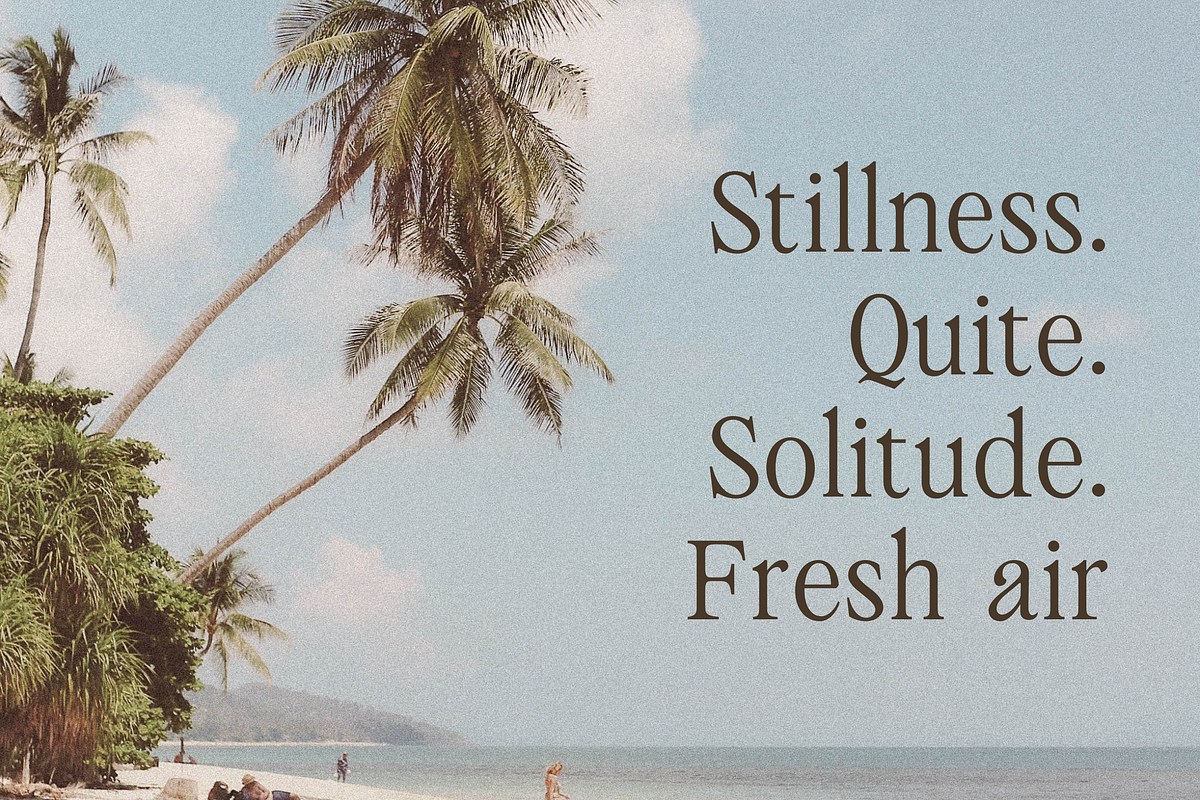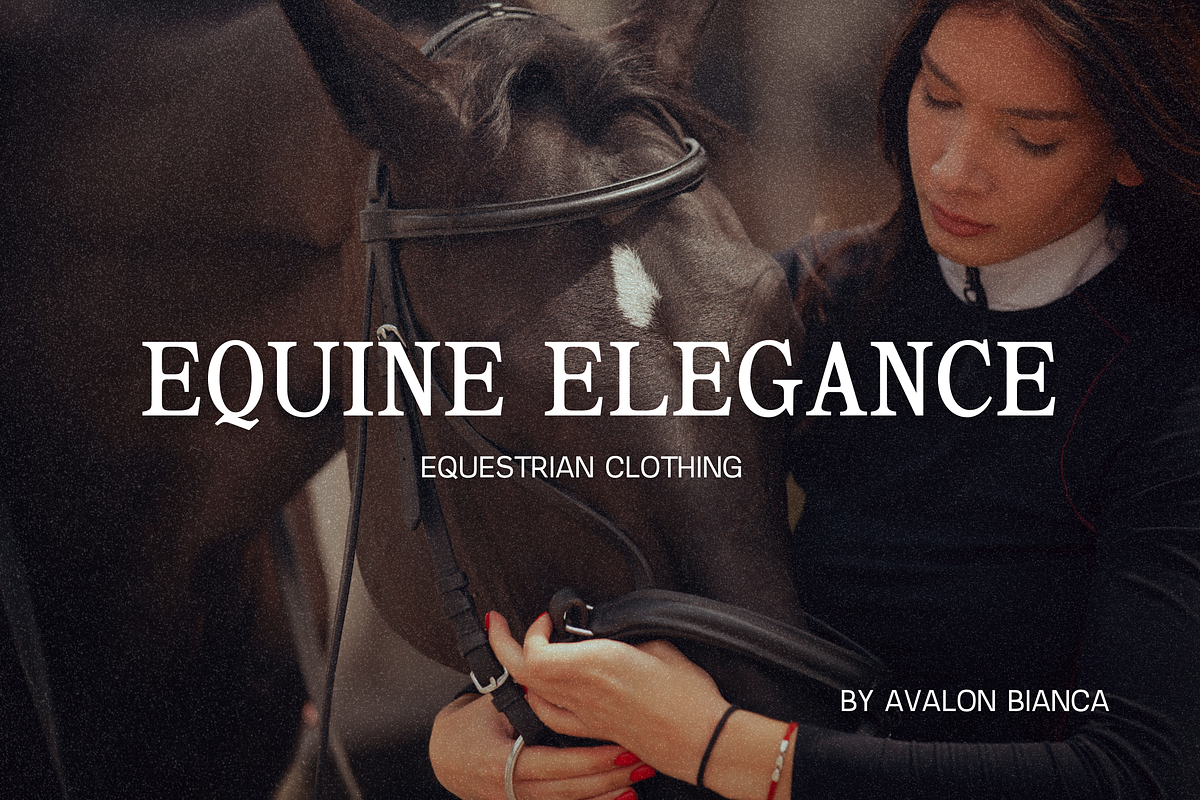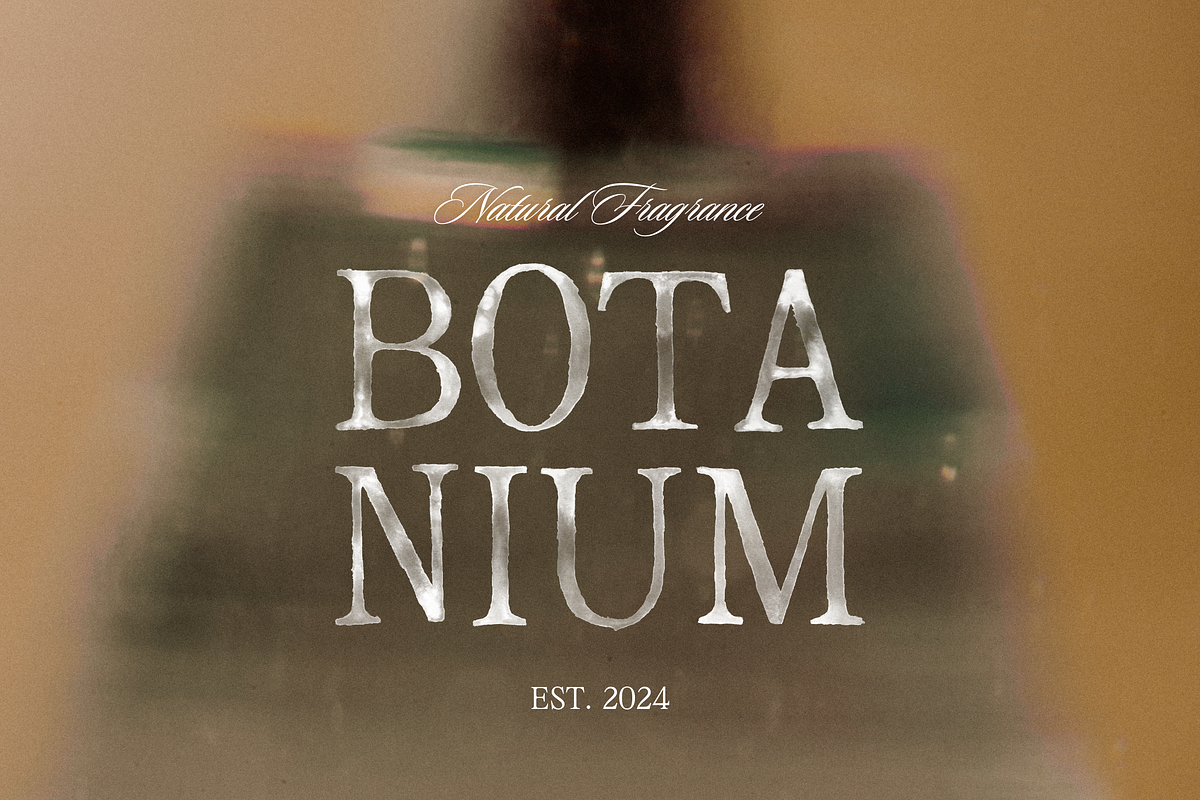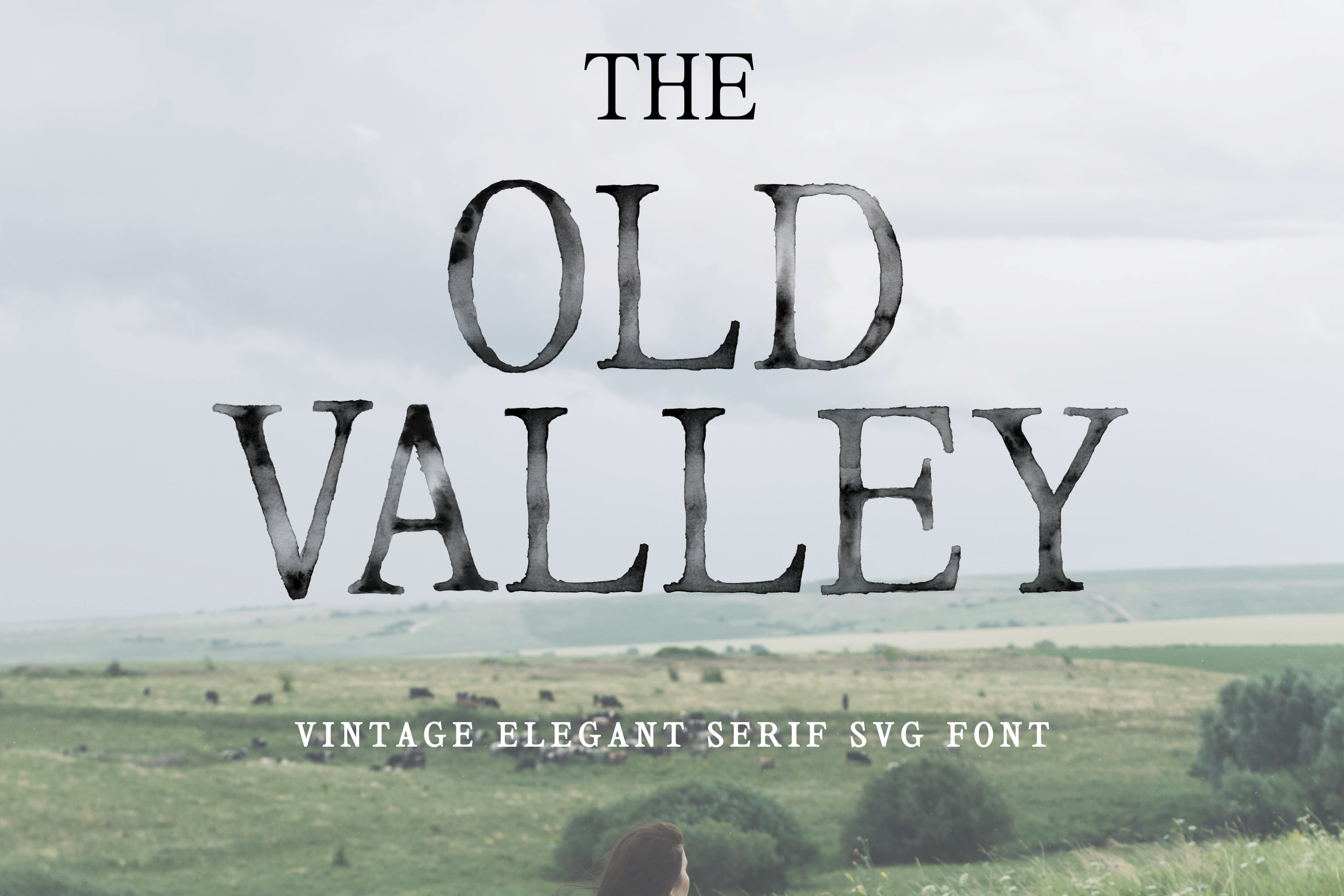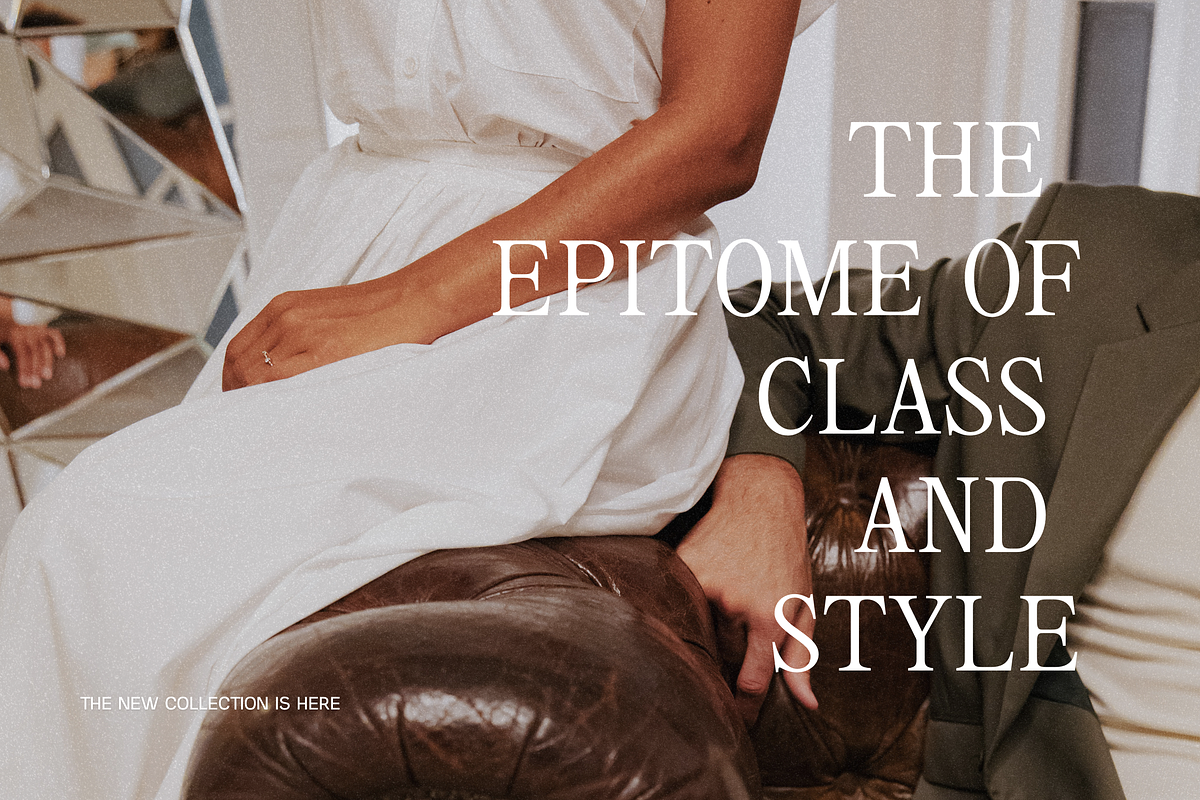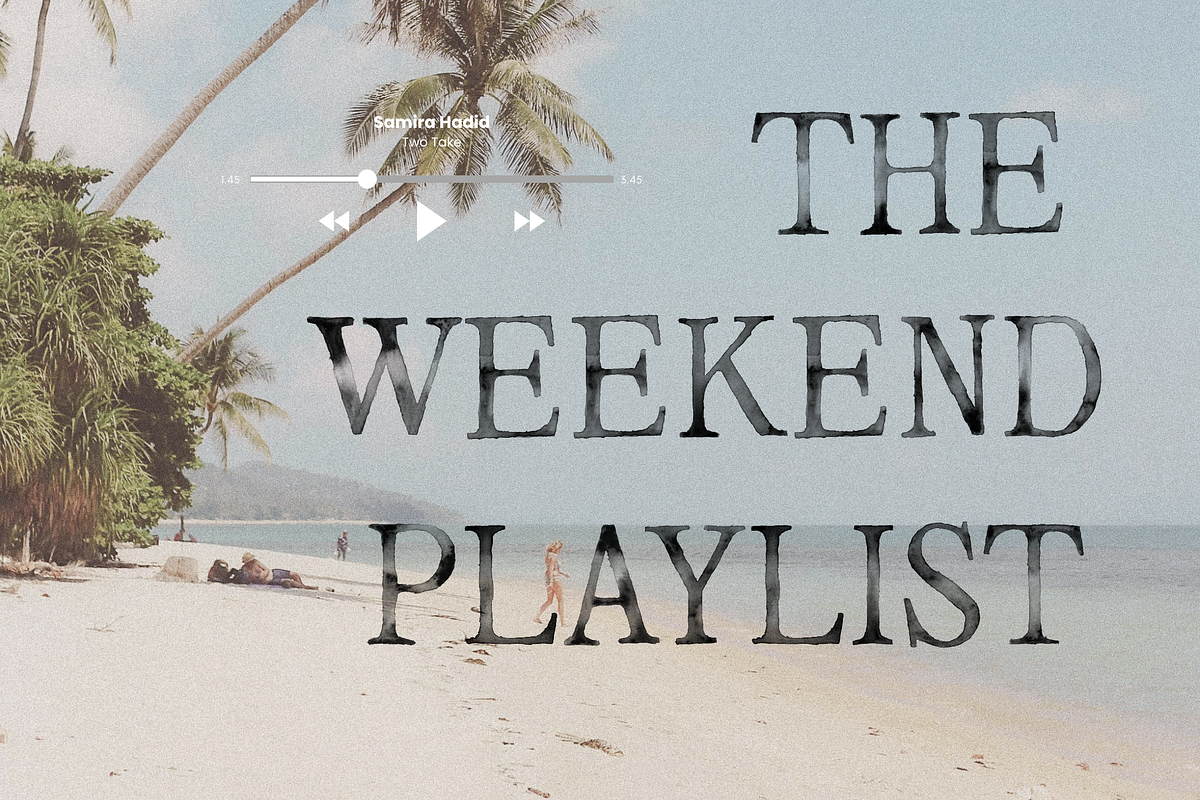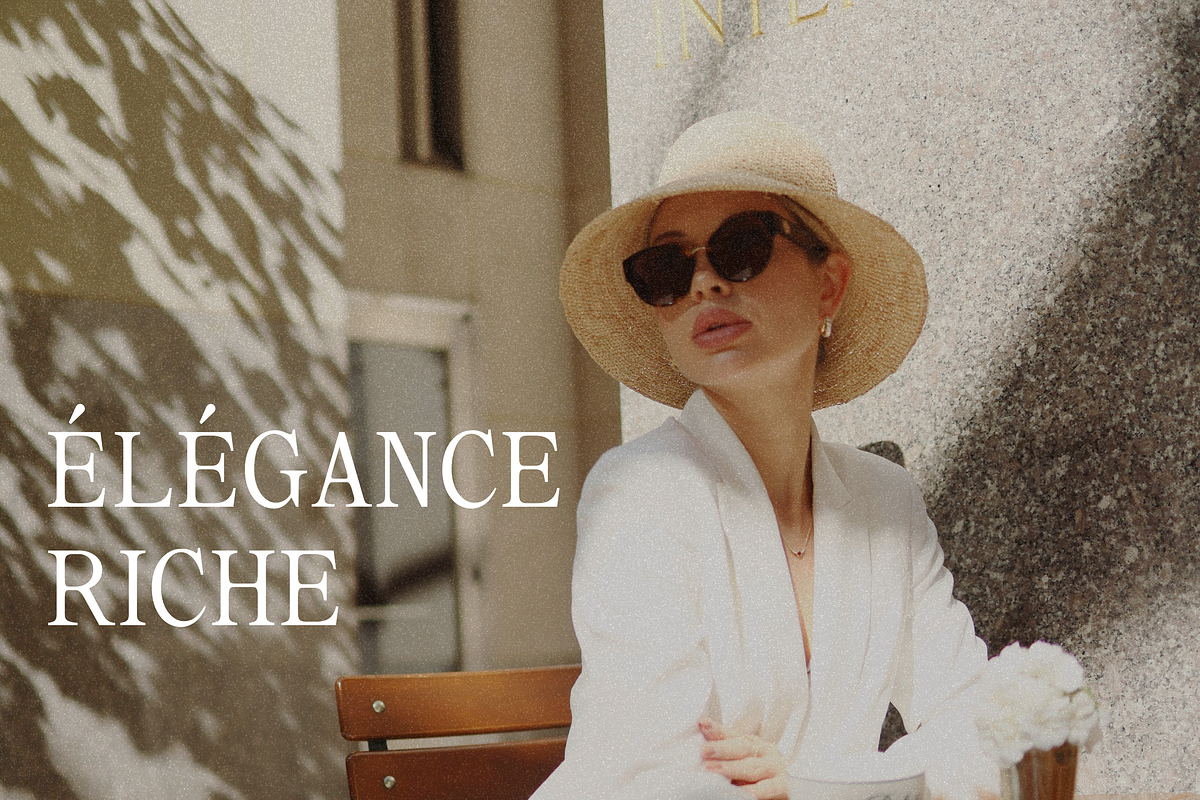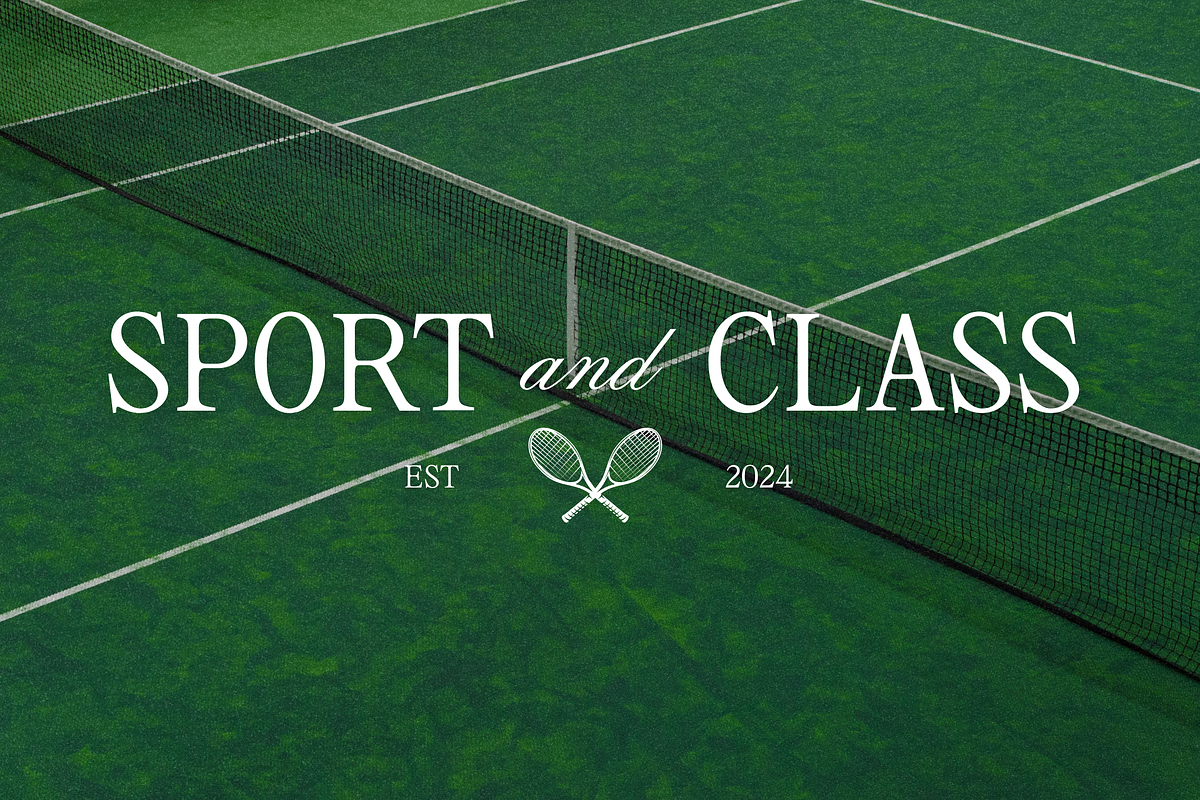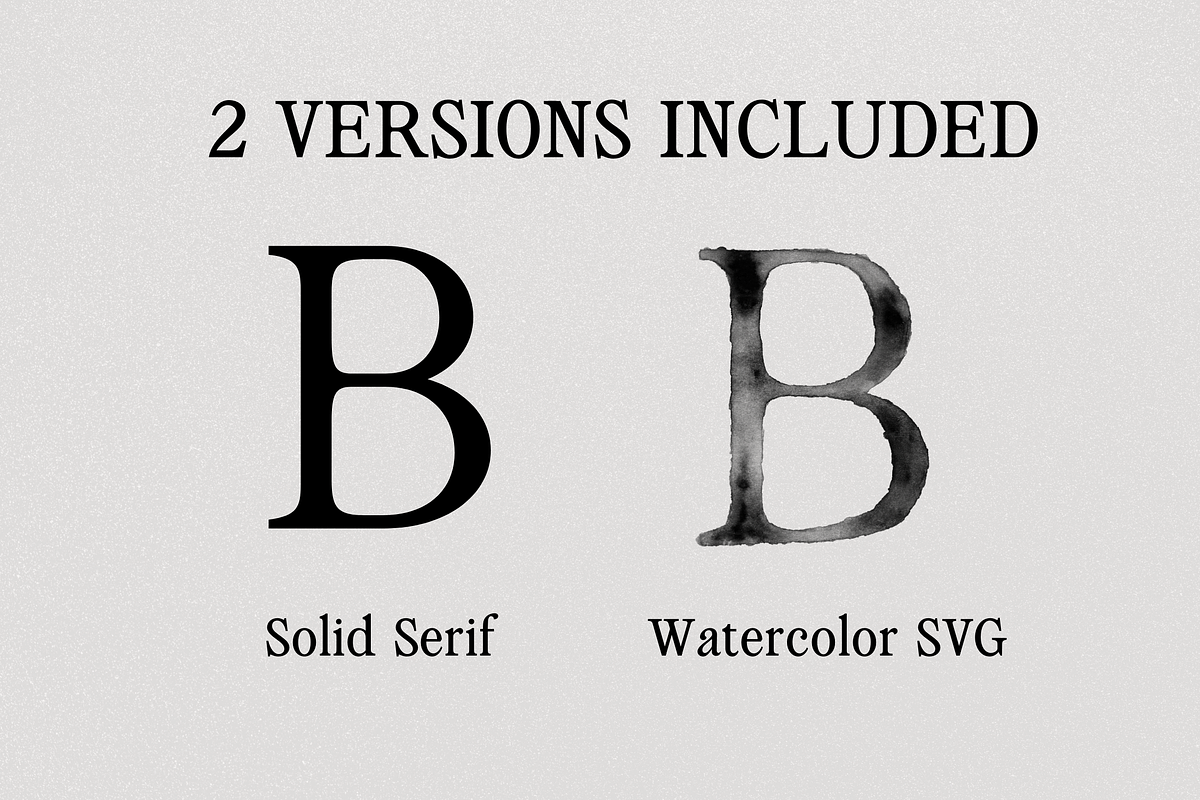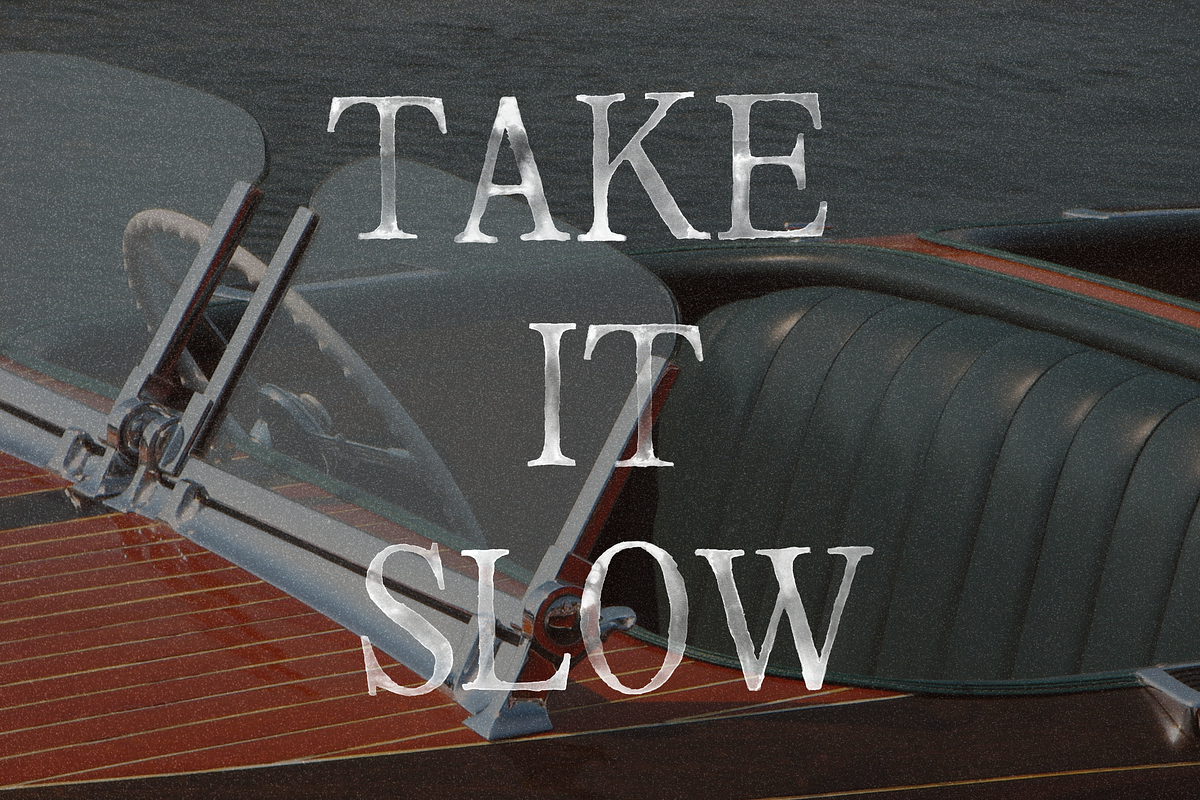
The Old Valley Watercolor SVG Font
The Old Valley is an Elegant Aesthetic Serif Font with 2 versions included; Solid Serif and Watercolor SVG, that can be used as a Wedding Invitation Font, Elegant Branding Font, Luxury Brand Font, Classic Logo Font, Premium Packaging Font, Fashion Canva Elegant font, Unique Branding Font, Stylish Urban Font, Minimal Procreate Font, Typography Canva Font, Magazine Layout Font, Classy Logo Font, Minimal Branding Font
Perfectly suitable for numerous use such as quotations, banners, logos, product packaging, titles, headers, Business cards, menu lists, and invitation cards!